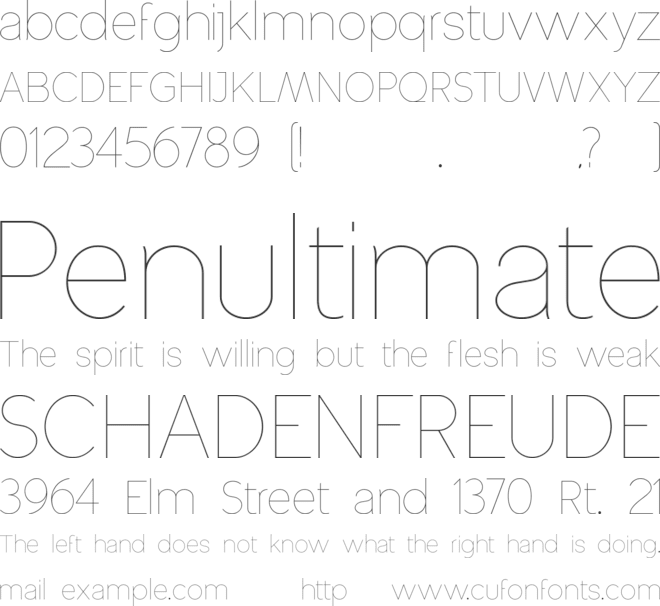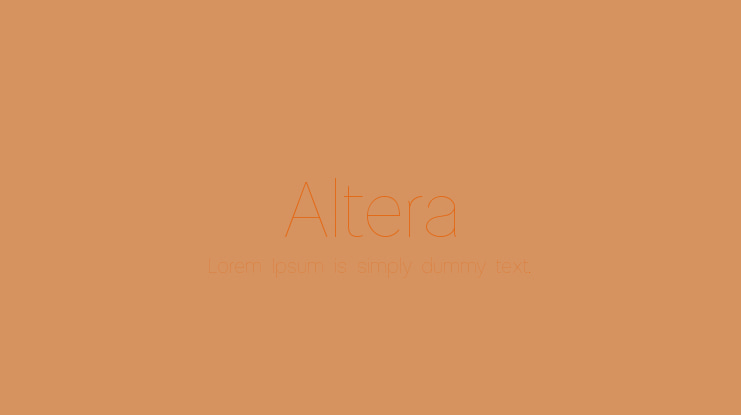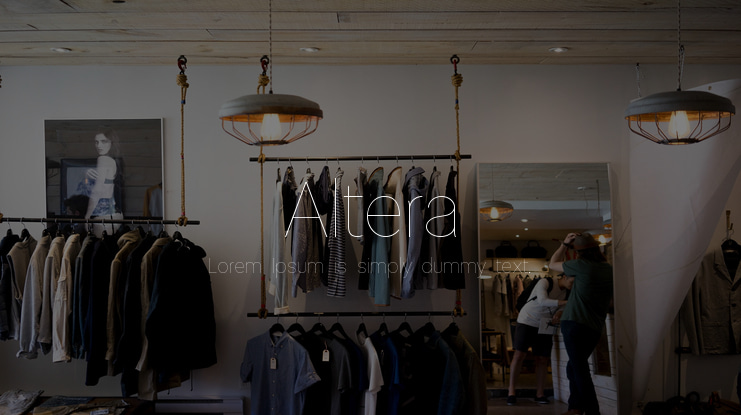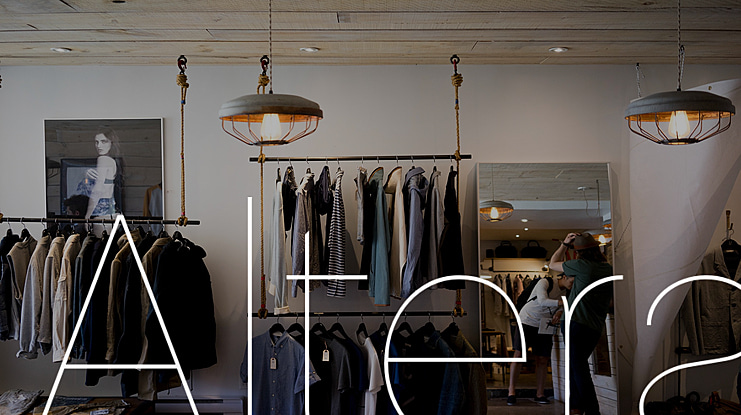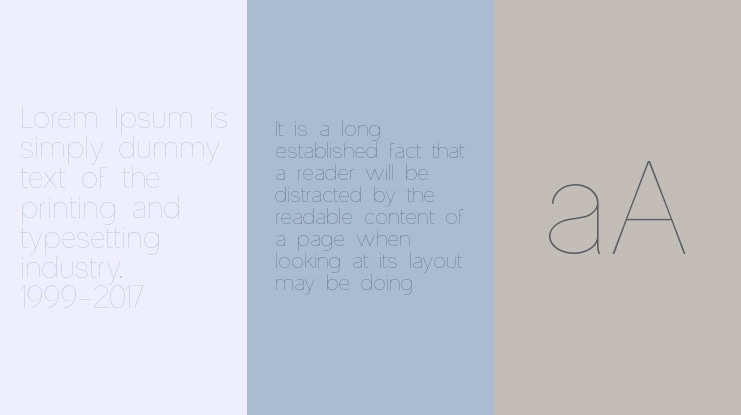
Altera Font
Altera is an ultralight typeface designed for use at large point sizes.
*Updated to include lowercase to give the demo version a better feel for the character*